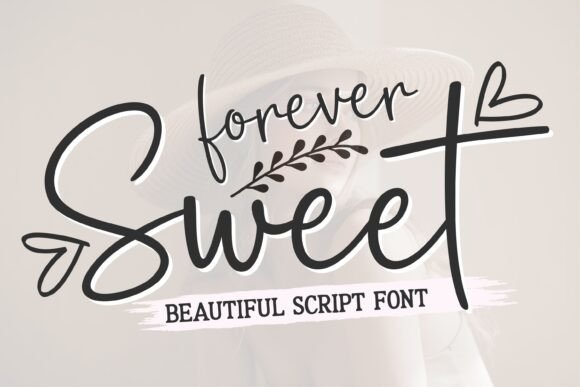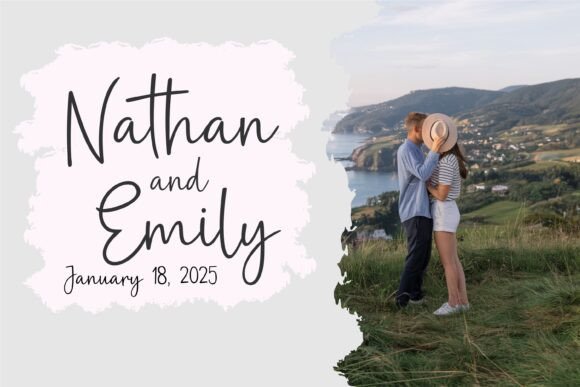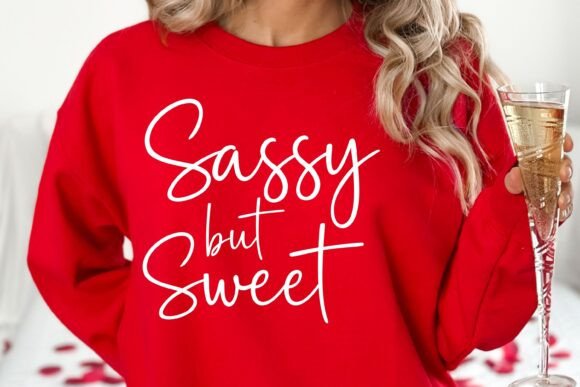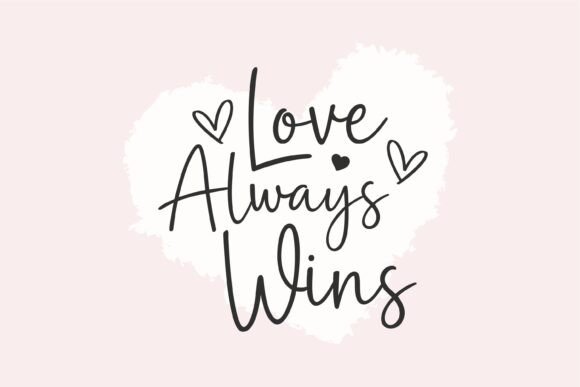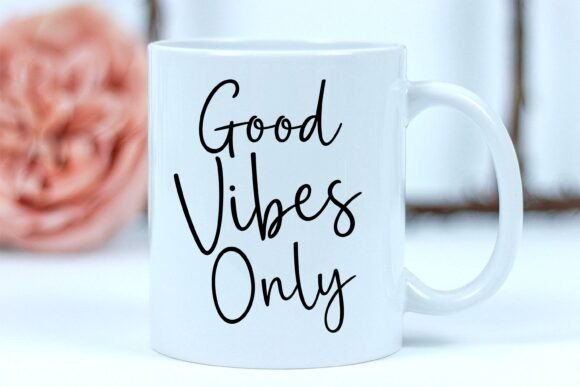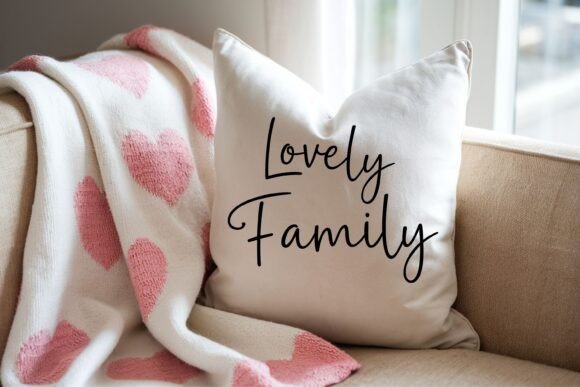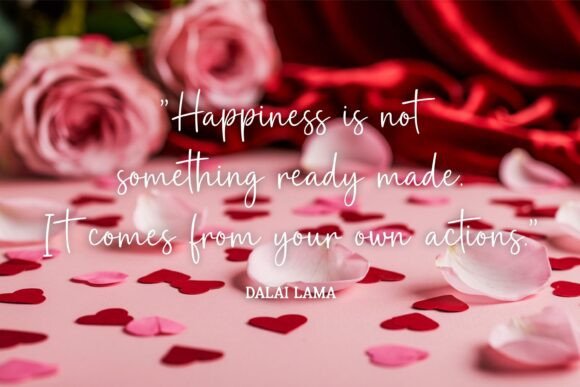
When Words Become Art: Discovering the Magic of Forever Sweet Font
There’s something special about the moment when a design idea sparks, and the creative process takes over. Perhaps it’s the combination of colors, the flow of text, or the way the words dance on the page. Whatever it is, it’s that feeling that drives us to push the boundaries of our creativity and bring our visions to life. For designers, finding the perfect font can be the key to unlocking that magic. And, we’re excited to introduce you to the enchanting Forever Sweet Font, a sophisticated script font that’s sure to captivate.
This beautiful typeface is more than just a font – it’s a statement piece that can elevate any project. From weddings to corporate branding, and from social media to home decor, Forever Sweet Font effortlessly infuses your designs with a touch of romance and delicate feminine flair. Whether you’re a seasoned designer or just starting out, this font is a valuable addition to your toolkit, offering endless possibilities for creative expression.
Forever Sweet Font Key Features
- Font Family: Forever Sweet Font, a unique and elegant script font designed to add a touch of sweetness to any design.
- Font Size: 1,000 glyphs, ensuring comprehensive coverage of characters, including Latin, Cyrillic, and Greek alphabets, as well as punctuation and symbols.
- Unique Characteristics: The Forever Sweet Font features beautiful, flowing connections between letters, making it ideal for creating romantic, elegant, and whimsical designs.
Forever Sweet Font Review
When I first laid eyes on the Forever Sweet Font, I knew it was something special ✨. The whimsical feel of the font immediately caught my attention, and I was excited to dive in and see what it had to offer. Here are my thoughts:
- The font’s unique design makes it perfect for any project that needs a touch of sweetness and charm ✨.
- It’s highly legible, even at smaller font sizes, making it a great choice for body text.
- The font’s versatility shines through in its multiple styles and weights, allowing for endless creative possibilities.
- The font may not be the best choice for projects that require a more formal or professional tone ⚠️.
- Some users may find the font’s whimsical nature overwhelming or too playful for their taste.
- The font’s unique design may not be to everyone’s liking, which could limit its appeal.
Overall, I’m impressed with the Forever Sweet Font. While it may not be for every project or designer, it’s a great choice for anyone looking to add a touch of whimsy and charm to their design. With its unique design and versatility, it’s definitely a font worth considering ✨.
Tips for Getting the Most Out of Forever Sweet Font
Use Forever Sweet Font for romantic and whimsical designs, such as wedding invitations, birthday cards, and children’s book illustrations.
To get the most out of Forever Sweet Font, experiment with different font sizes, colors, and styles to create a unique and eye-catching design.
Forever Sweet Font is perfect for:
- Birthday cards and party invitations
- Children’s book illustrations and design
For optimal readability, we recommend using the Forever Sweet Font at a size range of 18-36 points. The ideal line height is 1.2-1.5 times the font size. You can adjust these settings according to your design requirements and the specific context in which the font will be used.